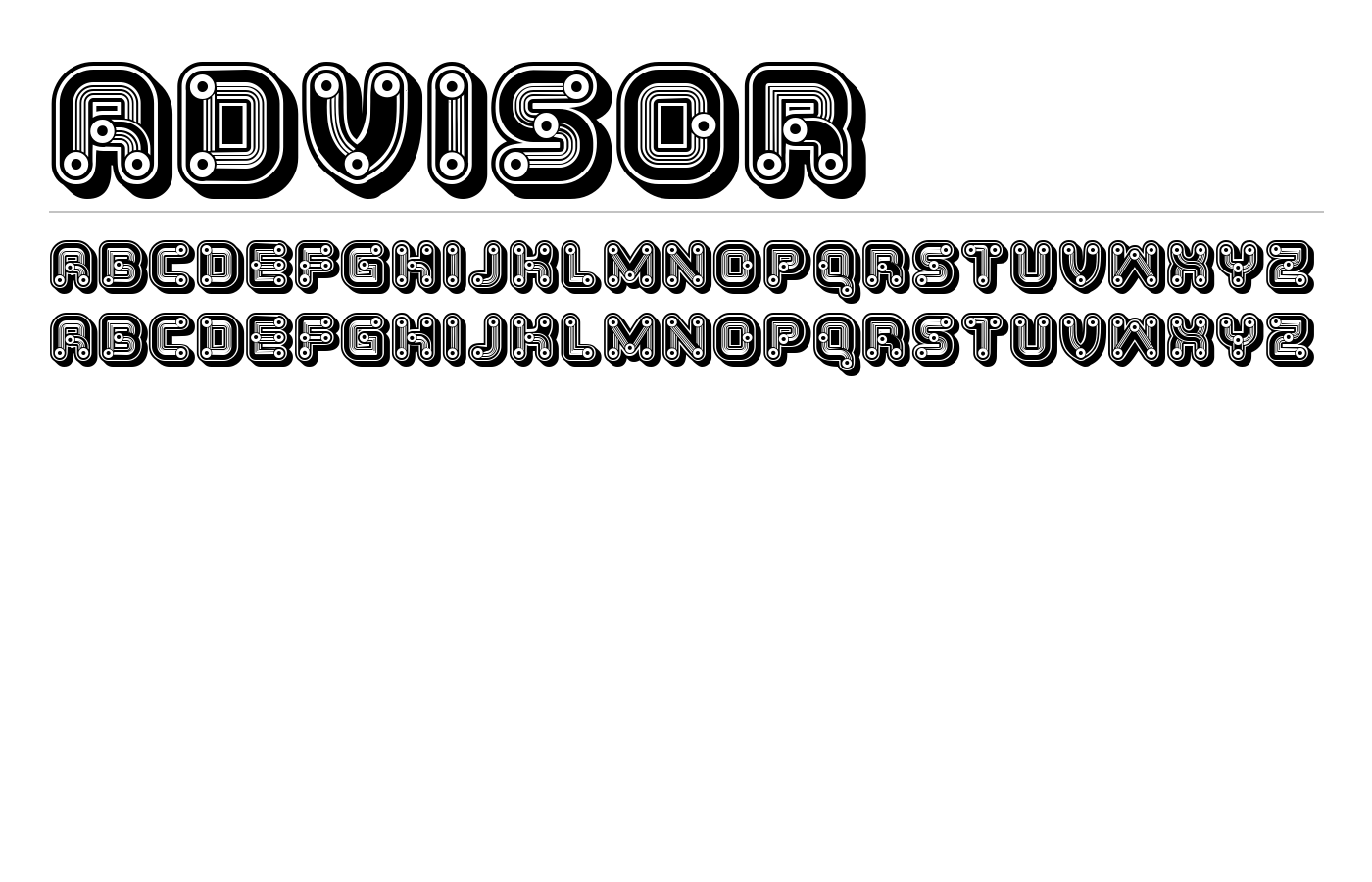
Advisor Font is a bold, decorative display typeface with a futuristic, geometric style characterized by layered, concentric outlines and rounded terminals giving it a dynamic, tech-inspired look. This all-uppercase font commands attention with its playful, yet structured design, making it ideal for eye-catching headlines, logos, or creative branding that seeks a modern and unique personality.
Advisor Font
About Advisor Font